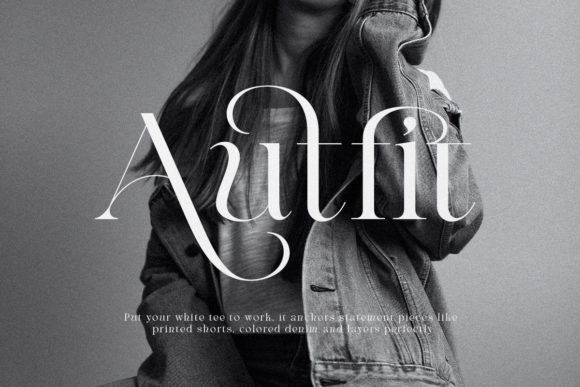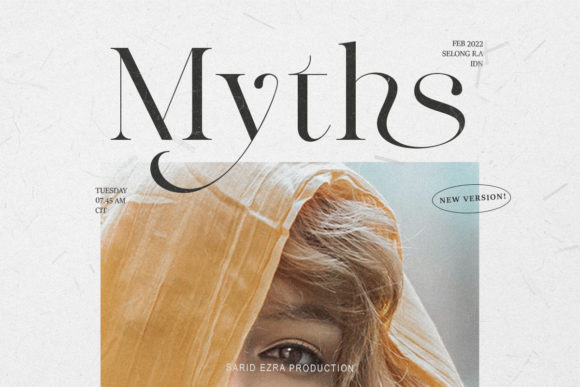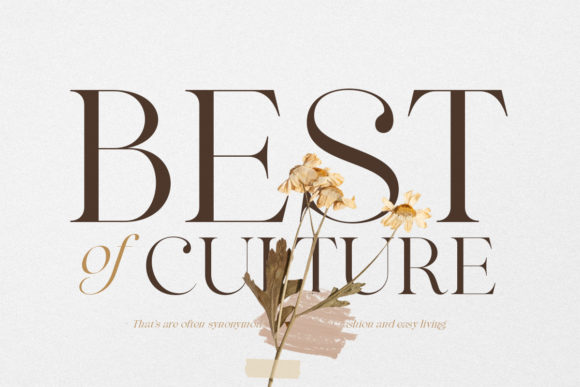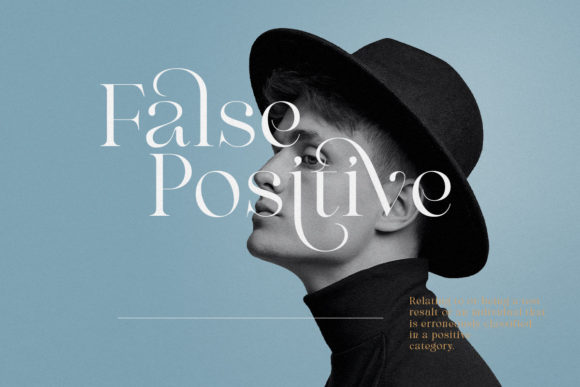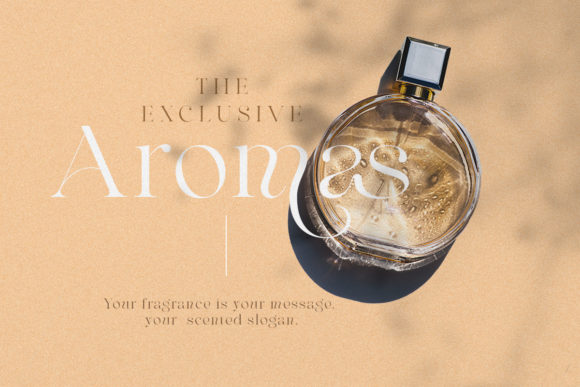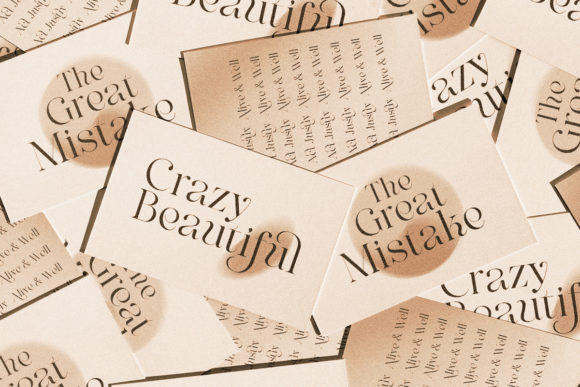
Introduction to Maglite Font
Have you ever stared at a blank canvas, feeling the pressure to create something truly unique and captivating? The thrill of the blank page can be both exhilarating and intimidating. But what if you had the perfect design resource at your fingertips? Enter the Maglite Font, an elegant and modern serif that’s about to revolutionize the way you approach your creative projects.
As a designer, you’re constantly on the lookout for high-quality fonts that can elevate your work and make it stand out from the crowd. The Maglite Font is a valuable addition to any design arsenal, offering a clean and sophisticated aesthetic that’s perfect for everything from wedding invitations to branding typefaces. And the best part? It’s available for free download, making it an accessible design resource for creatives of all levels.
Key Features of Maglite Font
- High-quality font with a unique and modern design, perfect for creative projects that require a sleek and sophisticated look.
- Features a transparent background, allowing for easy customization and versatility in various design applications.
- Designed with a high level of detail and precision, ensuring a crisp and clear display at various resolutions, including 300 DPI and 600 DPI.
- Unique characteristics include a clean and minimalist aesthetic, making it an excellent choice for branding, logos, and typography-based designs.
Honest Review: Maglite Font
I recently had the opportunity to work with the Maglite Font, a free download designed specifically for creative projects. Overall, I was impressed with the quality and versatility of this design resource.
- ✨ High-quality typography: The font is clean, modern, and easy to read, making it perfect for a wide range of design applications.
- ✨ Transparent background: The font comes with a transparent background option, which allows for seamless integration with any design or image.
- ✨ Versatile: The Maglite Font is suitable for a variety of creative projects, from logos and branding to digital media and print materials.
- ⚠️ Limited character set: While the font has a wide range of characters, it’s not exhaustive, which may be a limitation for more complex design projects.
- ⚠️ Not ideal for bold text: The font’s design may not be the best choice for bold or italic text, as it can become slightly distorted.
Overall, I was impressed with the Maglite Font and its potential for creative projects. While it may have some limitations, its high-quality design and versatility make it a valuable resource for designers looking for a free download.
The Maglite Font is a high-quality design resource perfect for creative projects that require a touch of sophistication. With its sleek and modern aesthetic, this font is ideal for designers, artists, and professionals looking to elevate their work.
Enhance your presentations and documents with the Maglite Font, adding a touch of elegance and sophistication.
Experiment with different font sizes and styles to create a unique look. Combine the Maglite Font with other design elements to create a visually appealing design.
The Maglite Font is perfect for:
- Business presentations and proposals
- Marketing materials and social media graphics
- Logos and branding
- Editorials and publications